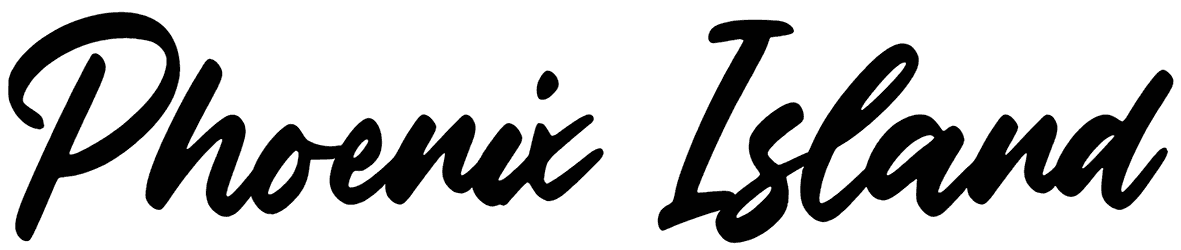
Phoenix Island Font
Let us introduce a handwritten font with a modern and elegant mood, which is called Phoenix Island, to you. With soft and thick lines, this item can throw a casual vibe to your words and make them appealing. Phoenix Island supports almost all characters, which causes it to be a delightful illustration for a lot of creative layouts, from business cards to Instagram posts.